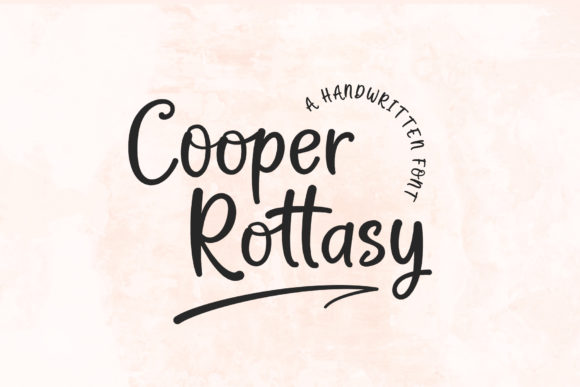
Unleash the Charm of Cooper Rottasy: The Enchanting Script Font for an Irresistible Brand Identity
In a world brimming with visual noise, your brand deserves a voice that captures hearts and sparks recognition. Enter Cooper Rottasy, the captivating handwritten font that weaves elegance and allure into every letterform. Its delicate strokes, flowing swashes, and playful ligatures dance across your designs, leaving an unforgettable impression that lingers in the minds of your audience.
Designed by the talented Beautypes, Cooper Rottasy embodies the essence of versatility. Whether you're crafting a timeless brand logo, adding a personal touch to your Instagram feed, or embarking on a DIY project that demands a touch of handwritten charm, this script font rises to the occasion with effortless grace.
Imagine your brand name adorned with the exquisite curves and flourishes of Cooper Rottasy. It's not just a font; it's an artistic statement that speaks volumes about your brand's personality. This font transforms ordinary words into captivating expressions that resonate with your customers on a deeper level, creating an emotional connection that fosters brand loyalty.
With Cooper Rottasy at your fingertips, your creative ideas find a new canvas to come to life. Its versatility knows no bounds, making it the perfect companion for a vast array of projects. From enchanting wedding invitations that capture the magic of the moment to whimsical posters that spark joy and imagination, this font effortlessly elevates your designs to new heights of artistry.
Take a step into the world of Cooper Rottasy and discover the transformative power of a meticulously crafted script font. Let its allure captivate your audience, leaving an indelible mark in their minds. Experience the magic of Cooper Rottasy today and watch your brand flourish with a captivating identity that truly sets you apart.